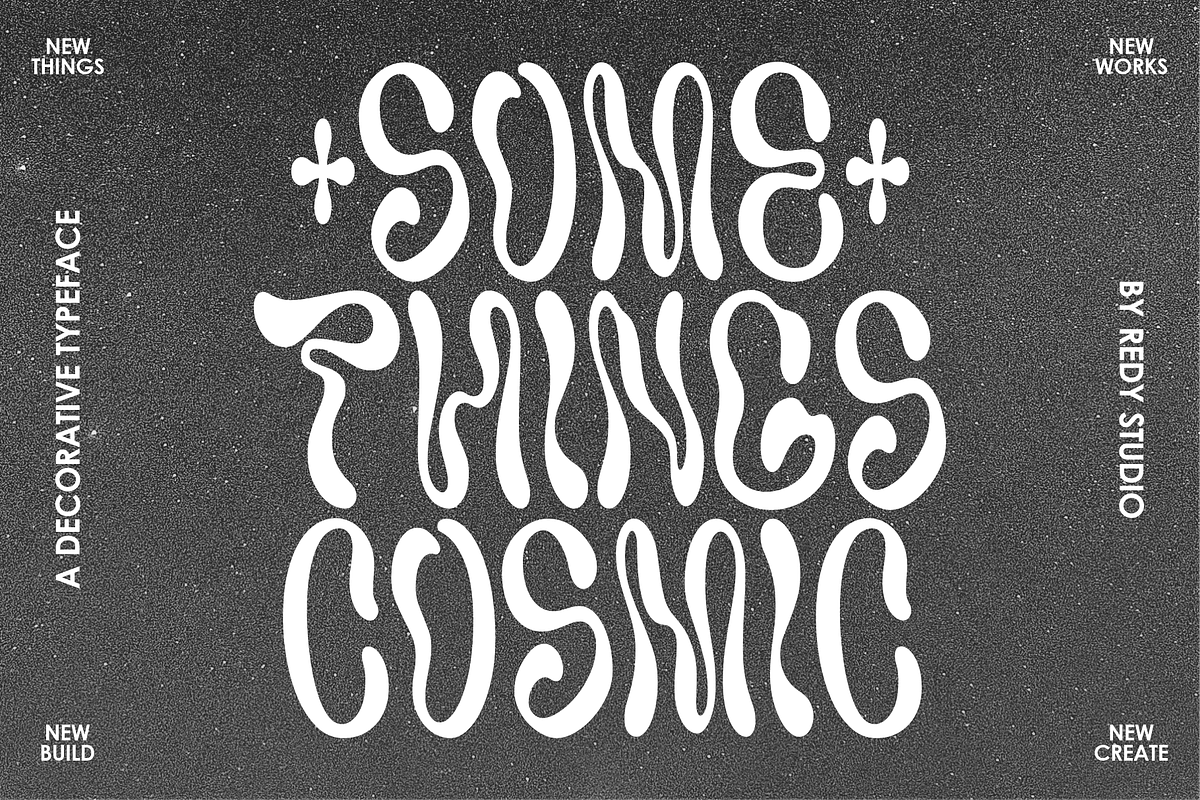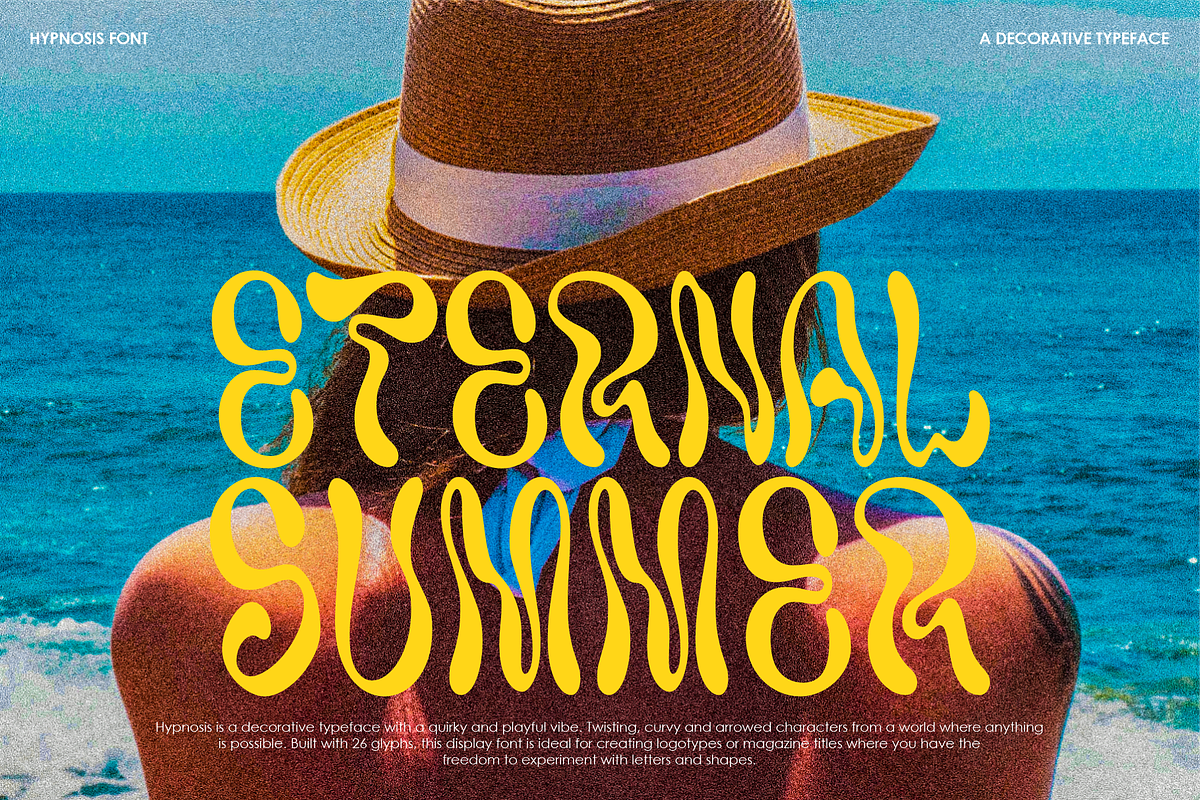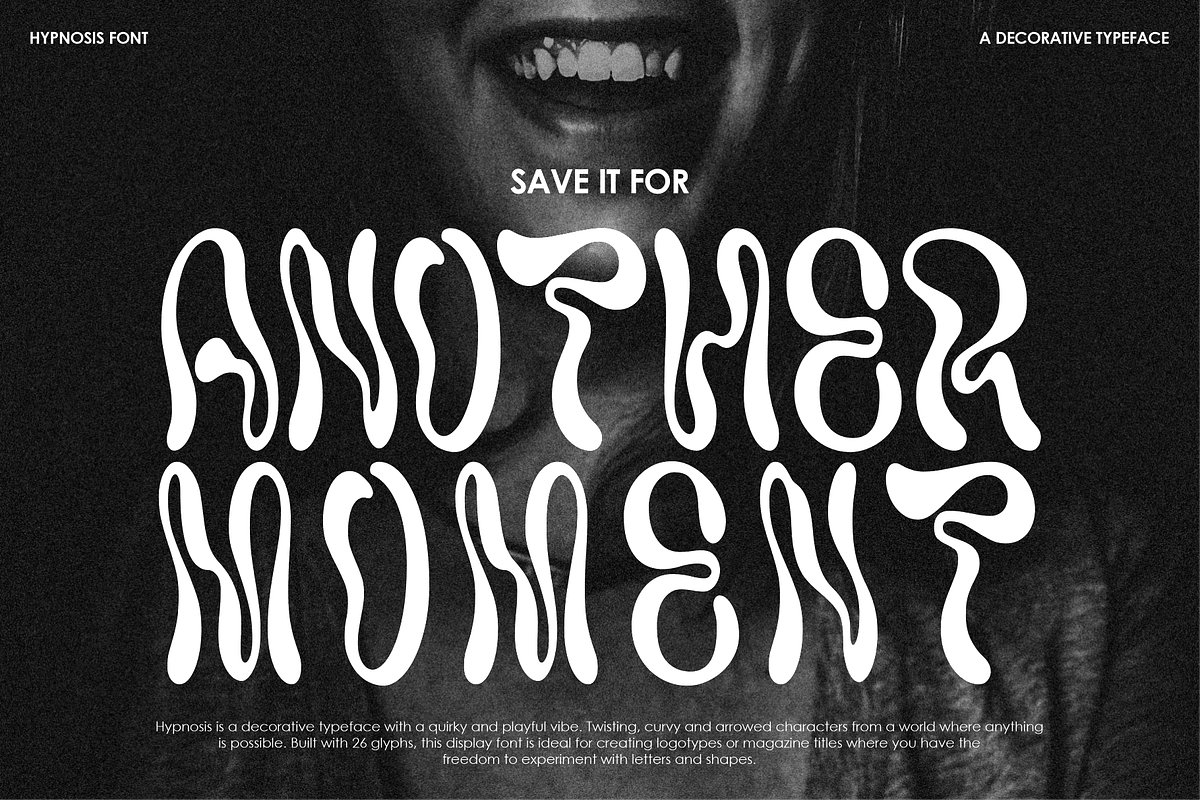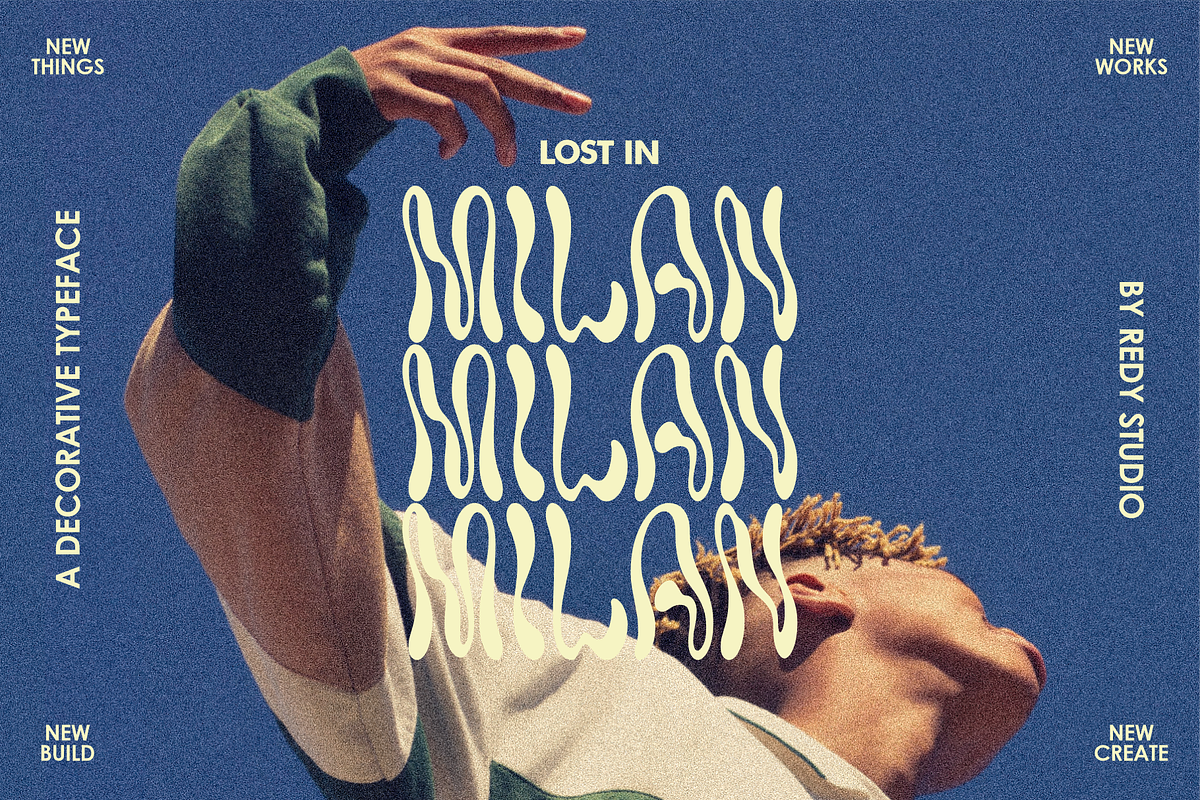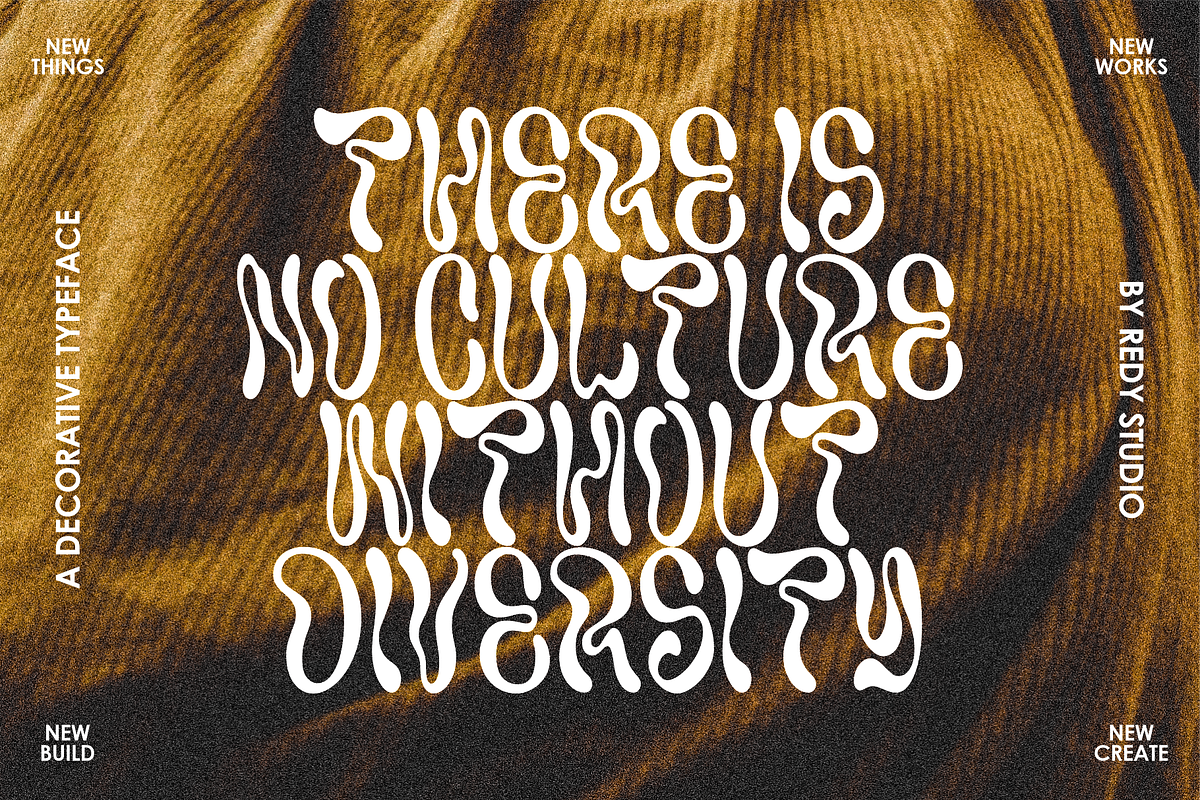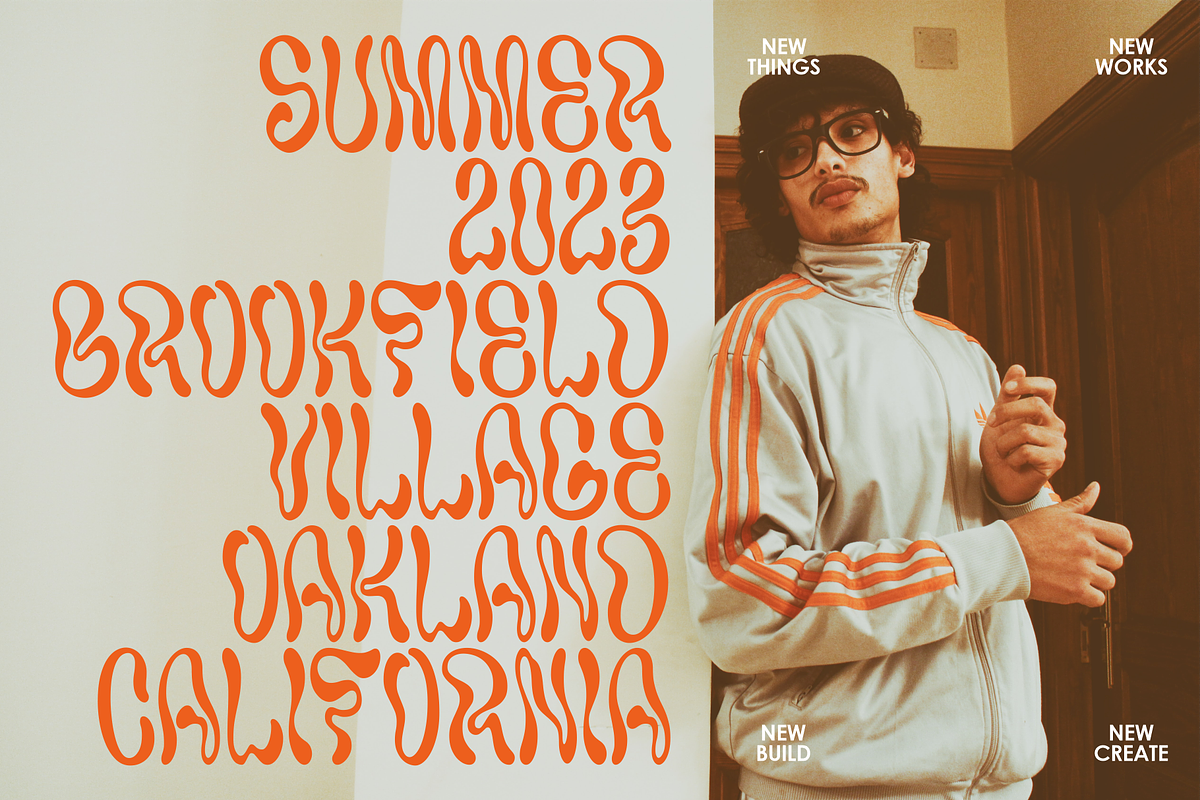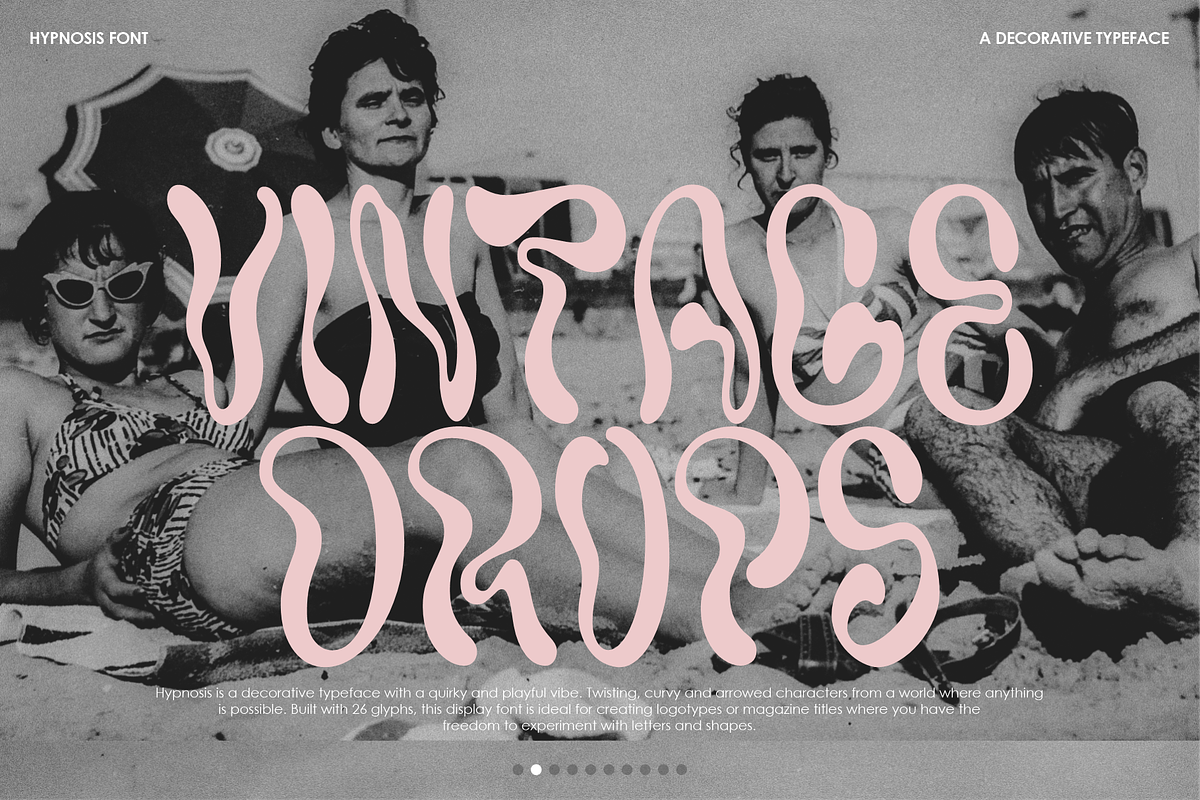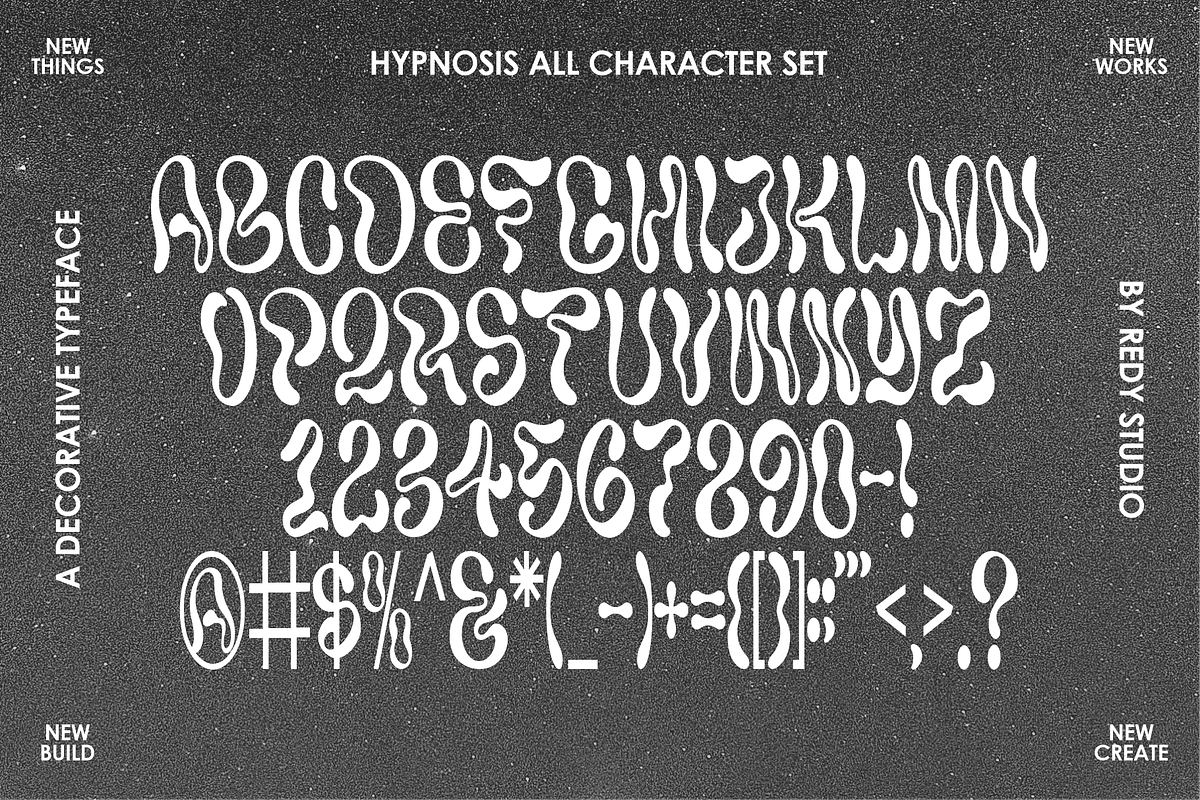
Hypnosis - A decorative typeface
Hypnosis is a decorative typeface with a quirky and playful vibe. Twisting, curvy and arrowed characters from a world where anything is possible. Built with 26 glyphs, this display font is ideal for creating logotypes or magazine titles where you have the freedom to experiment with letters and shapes.